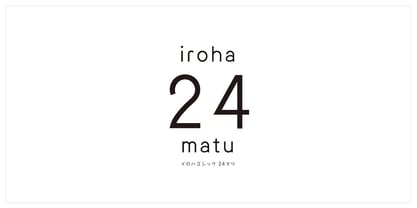
iroha 24matu StdN
by Kinuta Font Factory
The iroha 24matu StdN Font Family was designed by and published by Kinuta Font Factory. iroha 24matu StdN contains 1 styles. More about this family
iroha 24matu' boldly expresses the familiarity, flavour and fun of kana, with the kanji for 'iroha' being common. The design is simple, with an awareness of straight lines. There are 12 kana in total.